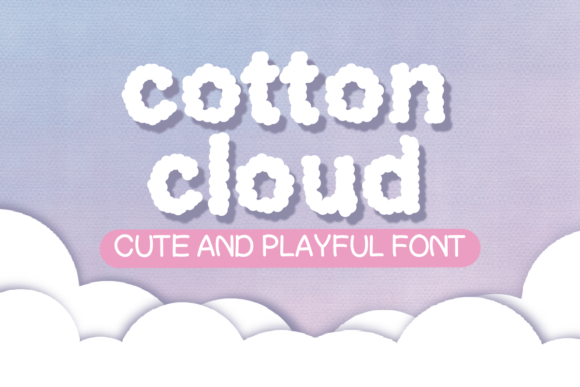
Enter the world of Cotton Cloud Font, a creation of AtelierJaru that's sure to captivate your senses. Dive into a realm of whimsical charm, where cuteness, fun, and coolness dance together in perfect harmony.
Cotton Cloud Font is a display font like no other, shaped like a cloud, cotton candy, and chubby. It's the perfect choice for children-themed designs, adding a touch of magic to any project. Imagine the smiles on their faces as they see their favorite characters come to life with Cotton Cloud's playful spirit.
With its soft edges and playful curves, Cotton Cloud Font is as welcoming as a warm hug. It's a font that speaks to the child within us all, evoking memories of carefree days and endless laughter. Whether you're designing invitations, posters, or social media graphics, Cotton Cloud Font will add a sprinkle of joy to every creation.
So, let your imagination soar with Cotton Cloud Font. Embrace its playful spirit and watch as your designs come alive with charm and delight. It's the perfect choice for anyone looking to add a touch of magic to their creative projects.